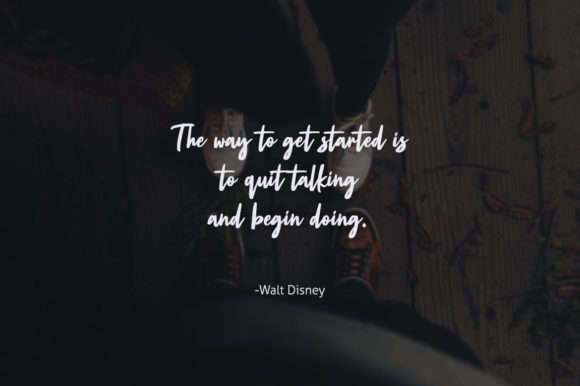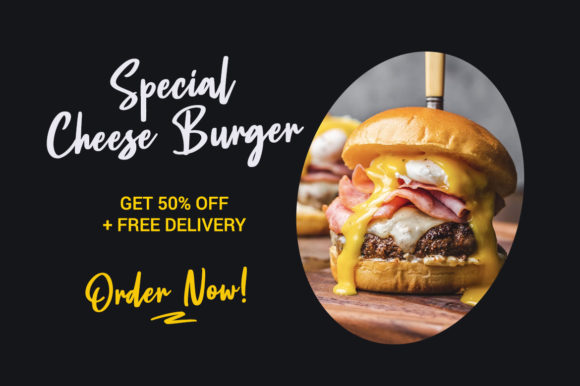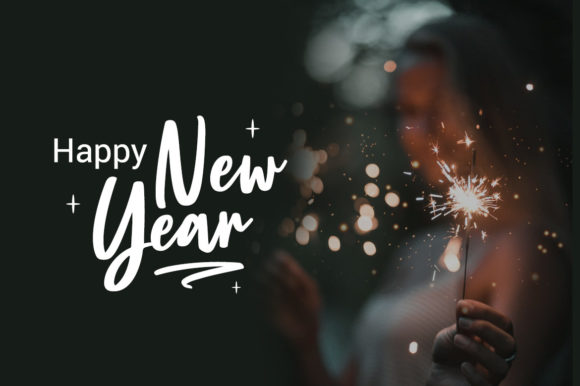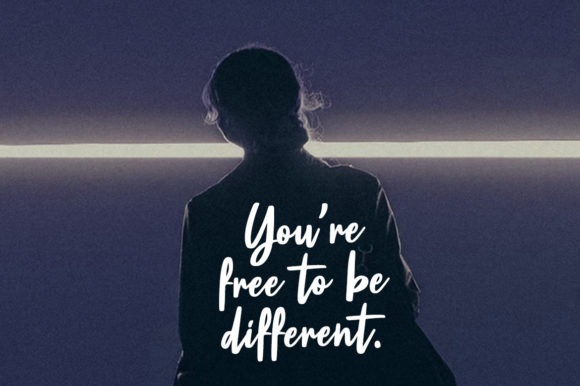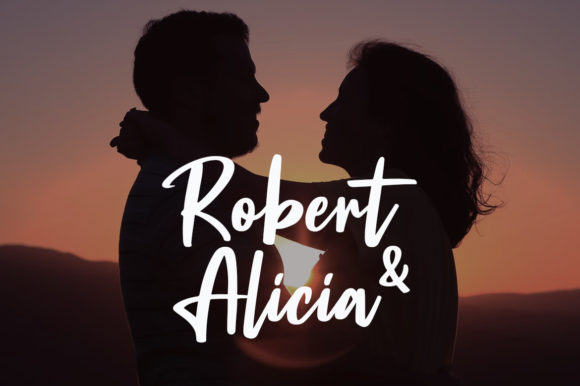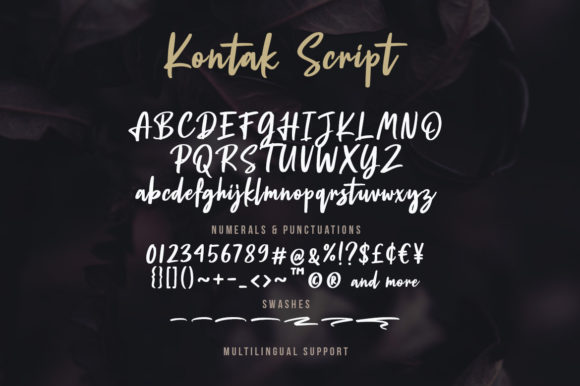
Introduction to Kontak Font
Kontak is a beautiful script font perfect for signature, branding, wedding invitations, fashion, photography, posters, social media posts, banners, book covers, packaging, quotes, greeting cards, advertising, and many more.
Add it to any of your creative projects, and make them outstanding .
Key Features of Kontak Font
Why Choose Kontak Font?
Kontak Font offers exceptional quality and versatility, making it a valuable addition to your design toolkit. Whether you’re creating for personal projects or commercial use, Kontak Font delivers professional results.